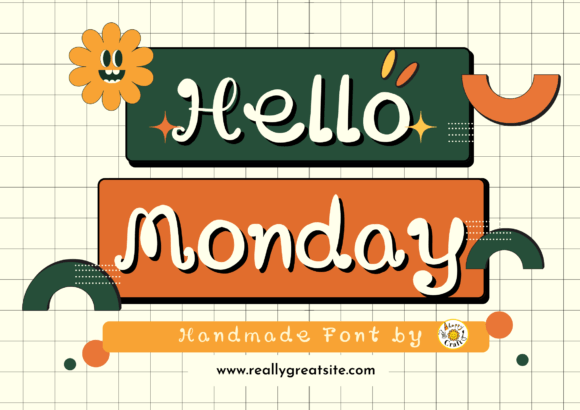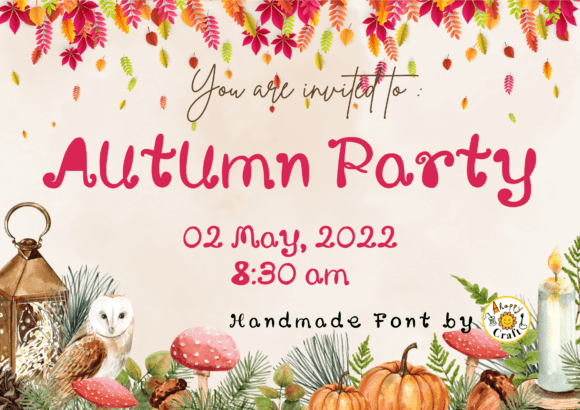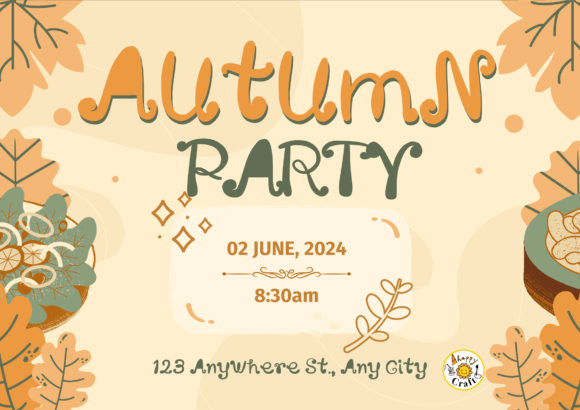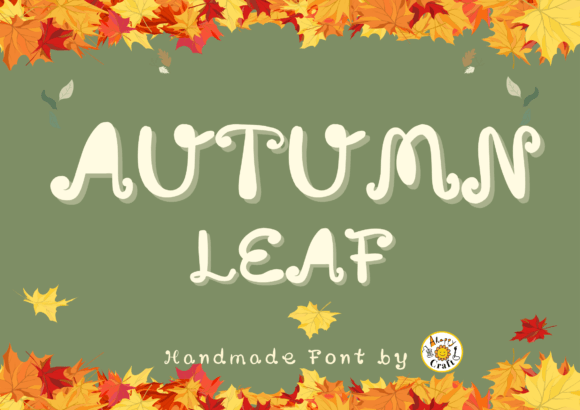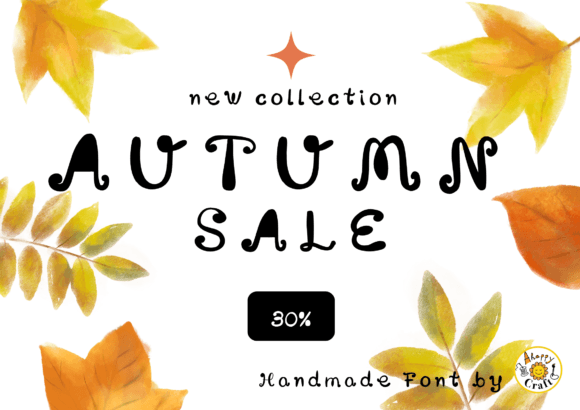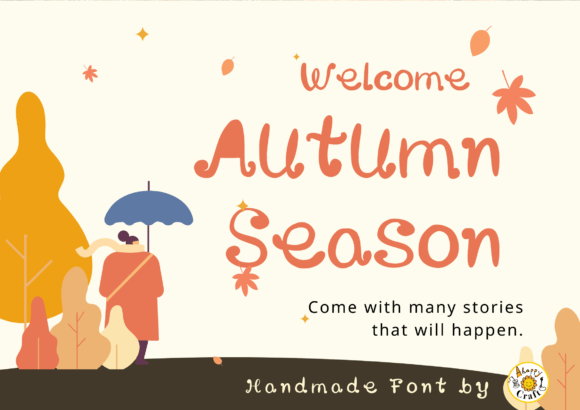
Introducing Autumn Leaf Font: The Perfect Addition to Your Seasonal Designs
As the leaves change colors and the air grows crisper, designers and crafters alike start looking for inspiration to create seasonal artwork that captures the essence of autumn. If you’re on the hunt for a font that embodies the fresh and playful feels of the season, look no further than the Autumn Leaf Font. This beautiful, handmade freehand font is perfect for adding a personal touch to your autumn-themed projects.
What Makes Autumn Leaf Font Special?
Autumn Leaf Font is more than just a pretty face. It offers support for all characters of the English language, making it a versatile choice for a wide range of design projects. Whether you’re creating digital artwork, invitations, decorations, or social media graphics, this font is sure to add a touch of autumn charm.
One of the standout features of Autumn Leaf Font is its handmade, freehand design. Each letter has been carefully crafted to give the font a playful, whimsical feel that’s perfect for autumn-themed designs. The font’s fresh and lively vibe makes it ideal for designers and crafters who want to add a personal touch to their work.
Uses for Autumn Leaf Font
So, what can you use Autumn Leaf Font for? The possibilities are endless! Here are a few ideas to get you started:
- Autumn Season Artwork: Create stunning digital artwork that captures the essence of the season. From leaf-filled landscapes to cozy autumnal scenes, Autumn Leaf Font is the perfect choice.
- Invitations: Add a touch of autumn charm to your invitations, whether you’re hosting a harvest party, a Thanksgiving dinner, or a seasonal craft fair.
- Decorations: Use Autumn Leaf Font to create beautiful decorations for your home or office. From printable art to seasonal signs, this font is sure to add a personal touch.
- Social Media Graphics: Create eye-catching social media graphics that showcase your autumn-themed designs. From Facebook posts to Instagram stories, Autumn Leaf Font is sure to make your content stand out.
- Digital Projects: Use Autumn Leaf Font in your digital projects, such as ebooks, printables, and digital planners.
Why Designers and Crafters Love Autumn Leaf Font
Designers and crafters love Autumn Leaf Font for many reasons. Here are a few:
- Unique and Playful Design: The font’s handmade, freehand design gives it a unique and playful feel that’s hard to find in other fonts.
- Versatility: Autumn Leaf Font offers support for all characters of the English language, making it a versatile choice for a wide range of design projects.
Tips for Using Autumn Leaf Font
Here are a few tips for using Autumn Leaf Font in your designs:
- Experiment with Different Sizes: Autumn Leaf Font looks great in a variety of sizes, from small and delicate to large and bold.
- Pair with Other Fonts: Try pairing Autumn Leaf Font with other fonts to create a unique and eye-catching design.
- Use in Combination with Images: Autumn Leaf Font looks great in combination with images, such as photographs of leaves, pumpkins, and other autumn-themed imagery.
Autumn Leaf Font is a beautiful, handmade freehand font that’s perfect for adding a personal touch to your autumn-themed designs. With its fresh and playful feels, support for all characters of the English language, and versatility, this font is sure to become a favorite among designers and crafters. Whether you’re creating digital artwork, invitations, decorations, or social media graphics, Autumn Leaf Font is the perfect choice. So why wait? Download Autumn Leaf Font today and start creating stunning autumn-themed designs!